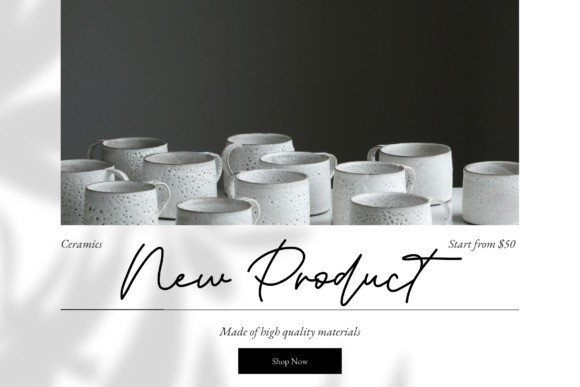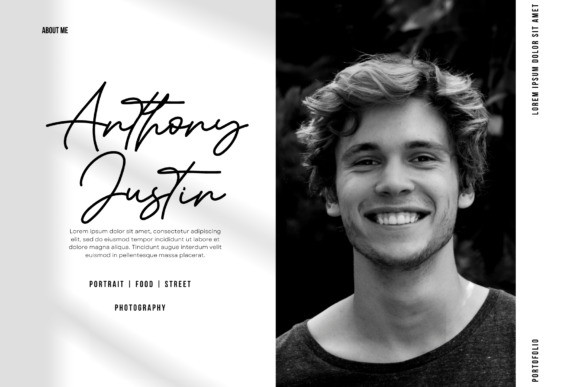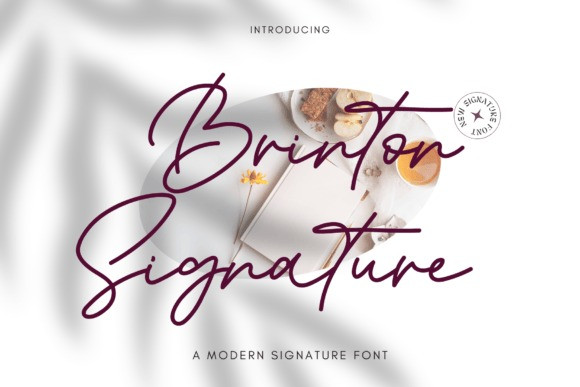
Brinton Signature Handwriting Font
Brinton Signature Handwriting Font is a modern signature font. Its charm makes it appear wonderfully, readable, and, ultimately, incredibly versatile. Comes in Regular and Italic styles.This font will look outstanding in any context, whether it’s being used on busy backgrounds or as a standalone headline!